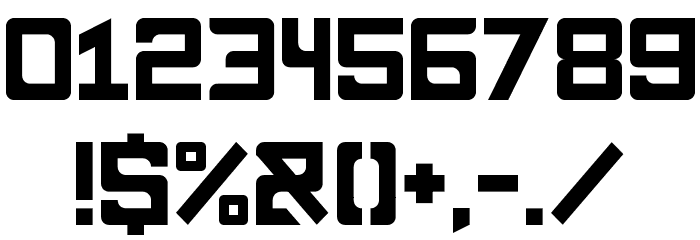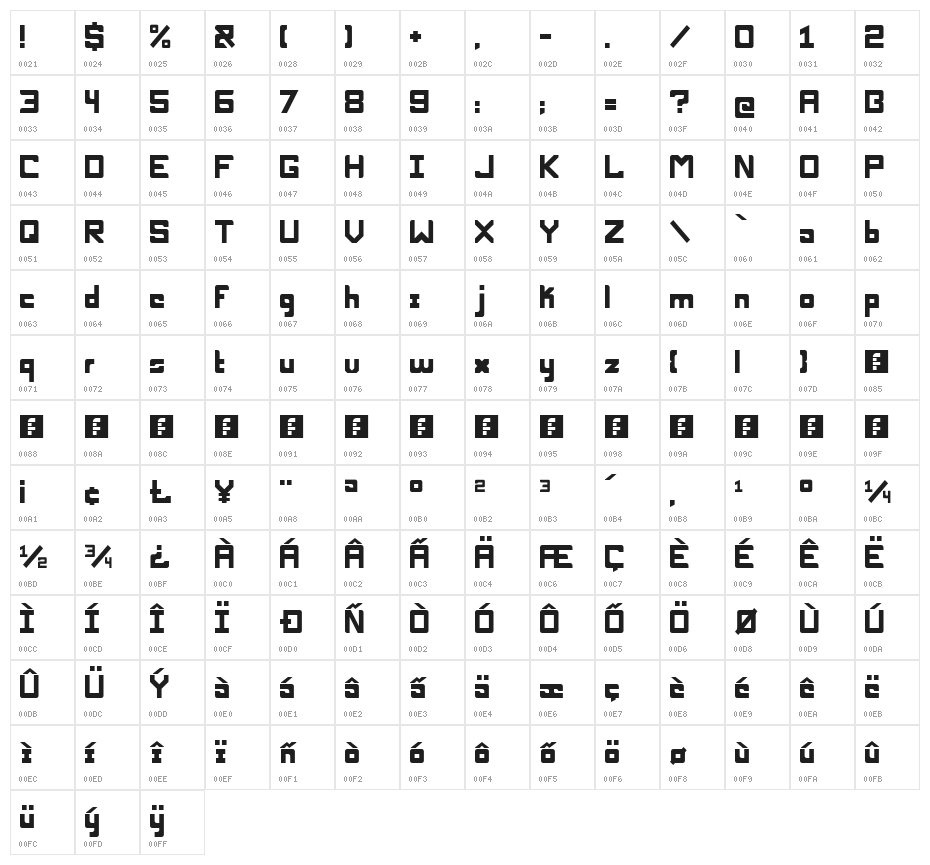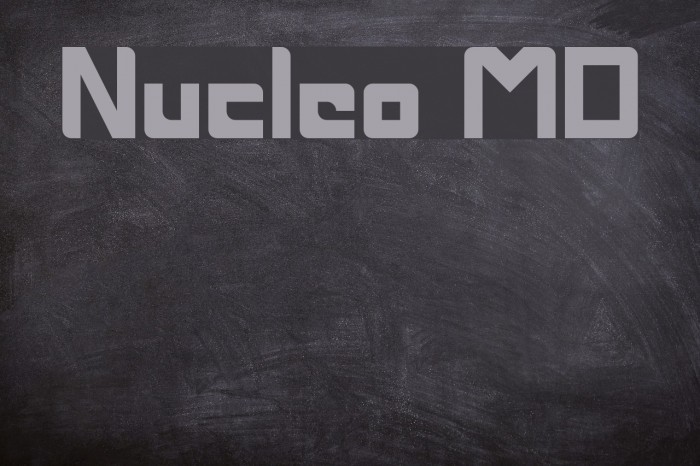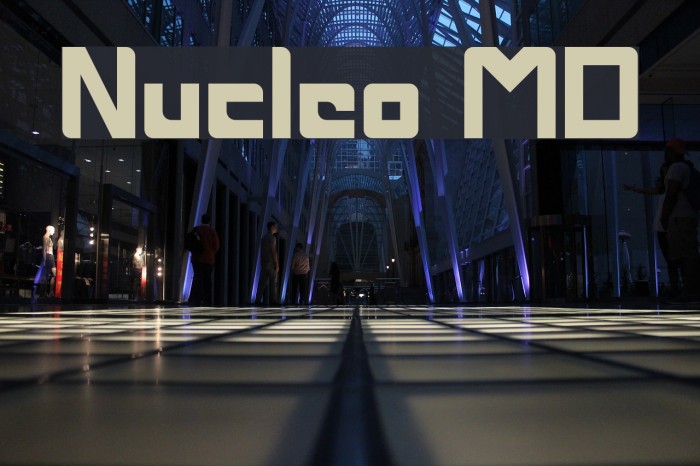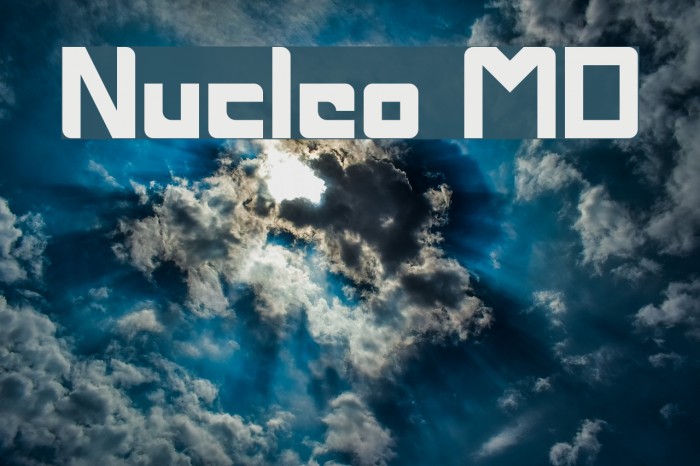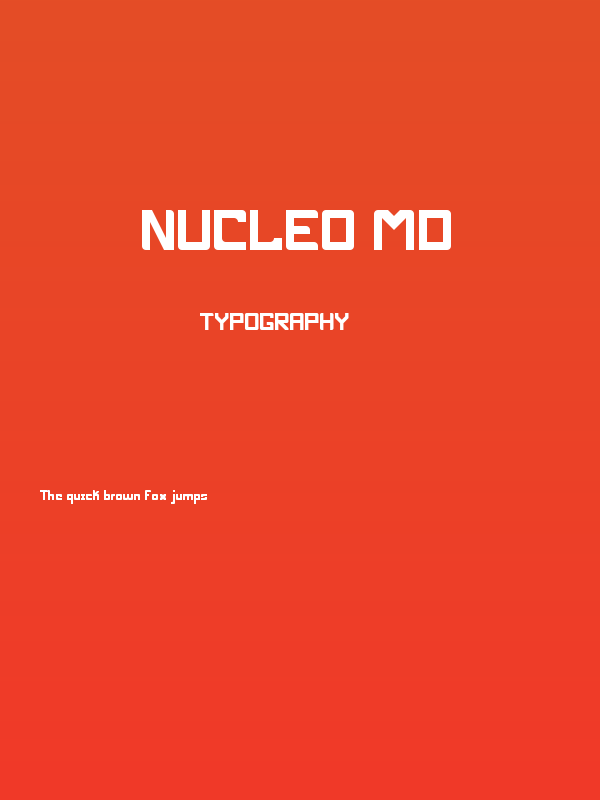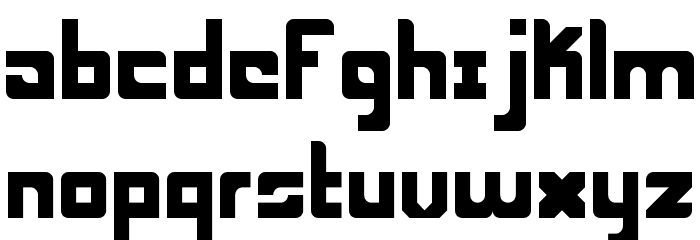
Nucleo MD Font
Nucleo MD Description
This font features a bold, geometric design with a modern and futuristic aesthetic. The characters are constructed with strong, straight lines and sharp angles, giving it a robust and industrial feel. The uppercase letters are uniform in height, while the lowercase letters maintain a consistent style, enhancing readability. The numerals are equally bold, matching the overall style of the alphabet. Special characters are designed with the same attention to detail, ensuring a cohesive look across all elements. This font is ideal for projects that require a strong visual impact.
| Proposed Projects | Ideal for branding, posters, headlines, and any design requiring a strong, modern impact. |